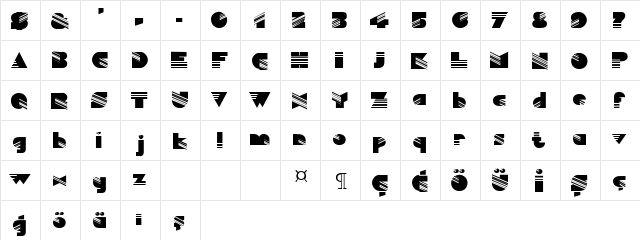
Sinalco Regular Font Preview
Sinalco Regular
Design Context for Sinalco Typeface
Sinalco is a composed and adaptable typeface that performs quietly and consistently across a wide range of design contexts.